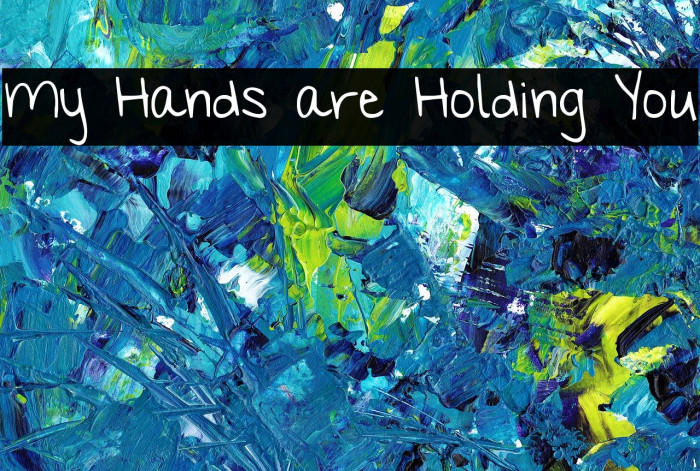
My Hands are Holding You Font
This font features a playful and informal handwritten style, characterized by its uneven strokes and casual appearance. The letters are slightly slanted, giving a dynamic and lively feel. The uppercase and lowercase letters maintain a consistent style, with rounded edges and a friendly demeanor. Numbers and special characters follow the same whimsical design, making the font versatile for creative projects. The overall look is approachable and personal, ideal for conveying warmth and friendliness.
A playful, informal handwritten font with a lively and friendly appearance.
• Proposed Projects: Ideal for greeting cards, children's books, personal blogs, and informal branding materials.
• Category: Handwritten
• Overall Style: Casual, Playful
• Use Case: Headlines, Informal text, Creative projects